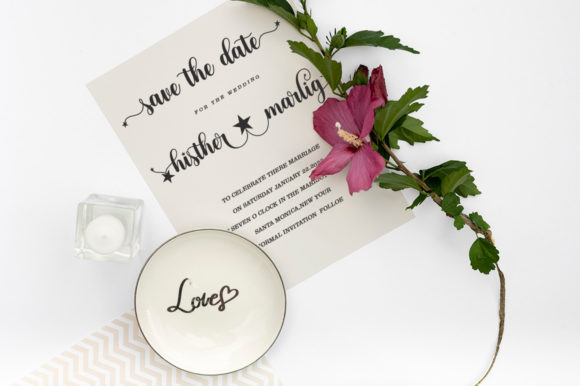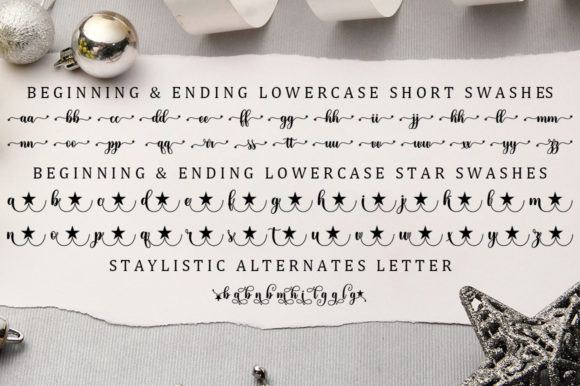
Harth Stylig Font
db-ku.com - Script & Handwritten -- Harth Stylig is a romantic and distinct calligraphy typeface with characters that dance along the baseline. It has a casual, yet elegant touch. This font is PUA encoded which means you can access all of the glyphs and swashes with ease.